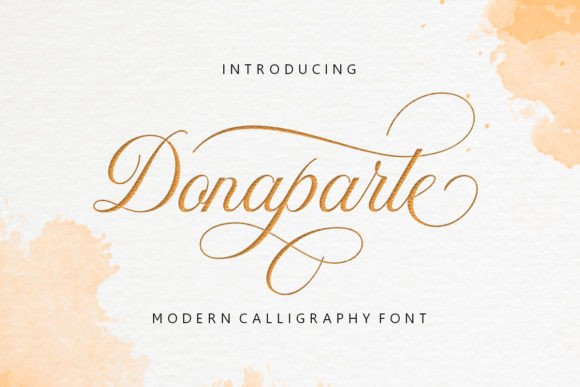
Introducing Donaparte Font, the perfect addition to your design arsenal! Created by Slex_studio, this script font is the ideal choice for anyone looking to elevate their projects.
Donaparte Font boasts delicate, elegant, and flowing handwritten characters that will add a touch of sophistication to any design. Whether you're designing a website, creating a logo, or working on a print project, this font will provide the perfect finishing touch.
What makes Donaparte Font stand out from the rest? Its well-balanced characters and beautiful design make it the perfect font for modern UI. It's no wonder it's known as one of the best fonts for modern UI on the market!
But Donaparte Font is more than just a pretty face. It's also incredibly versatile, matching a wide pool of designs. And when combined with your most creative ideas, it has the power to bring them to life!